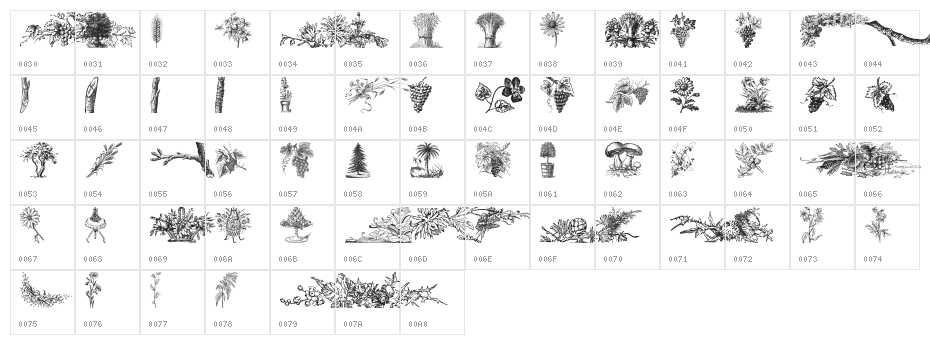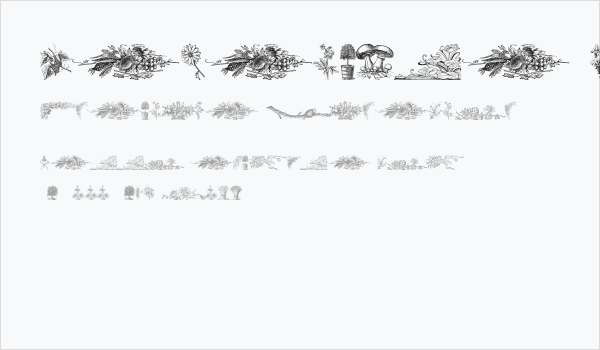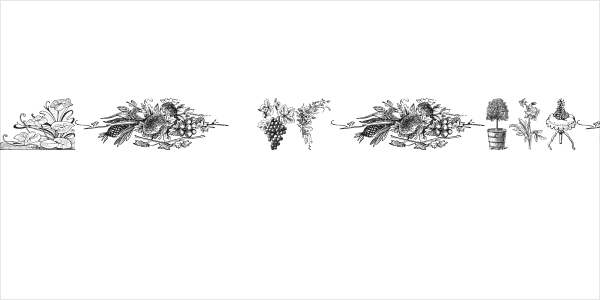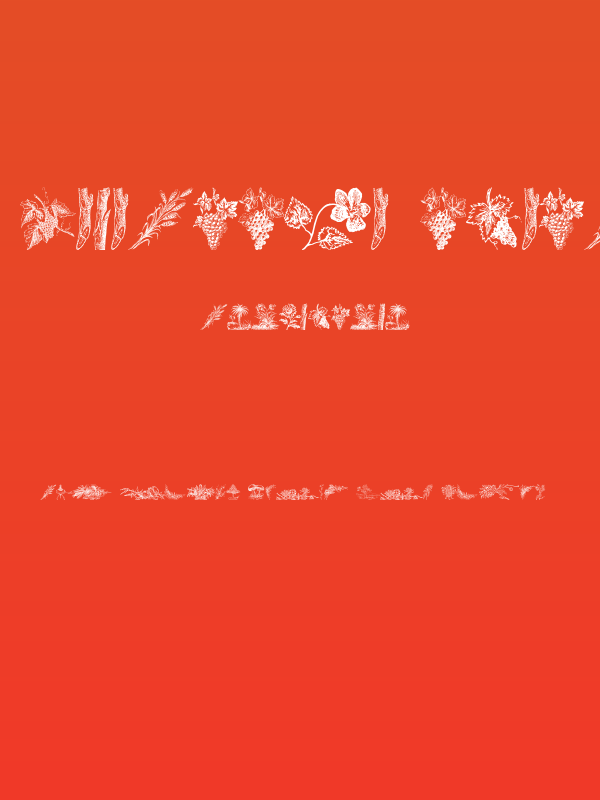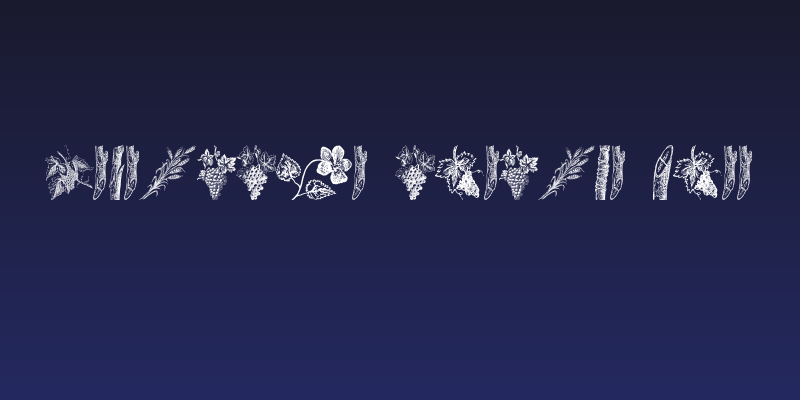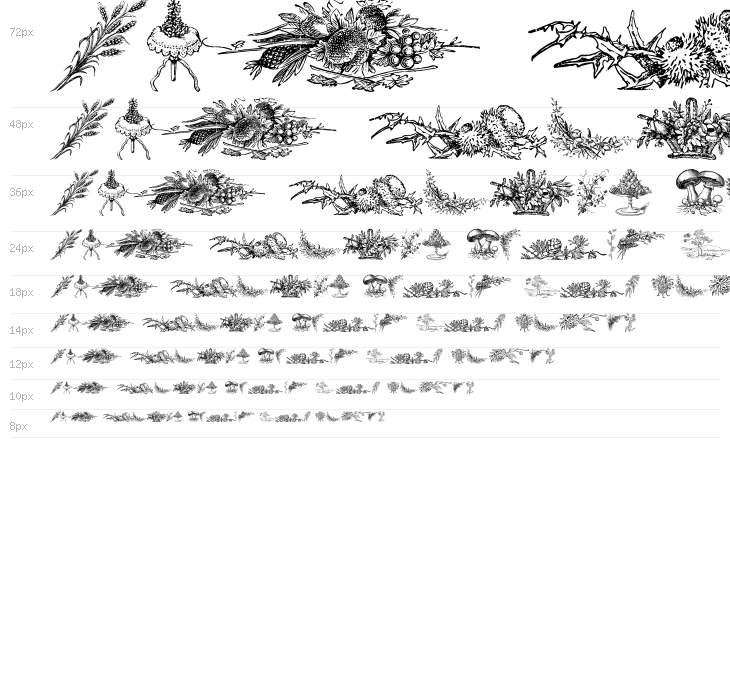
Vegetable Breathe Free Font
Vegetable Breathe Free Description
A decorative collection of detailed botanical and vegetable illustrations, each glyph representing a unique plant, tree, or vegetable in a hand-drawn, vintage engraving style. The set features intricate linework and organic forms, with no traditional alphabetic or numeric characters.
| Overall Style | Vintage, Decorative |
| Use Case | Decorative elements, Borders, Themed graphics |
| Proposed Projects | Nature-themed invitations, botanical packaging, vintage posters, scrapbooking, decorative borders. |